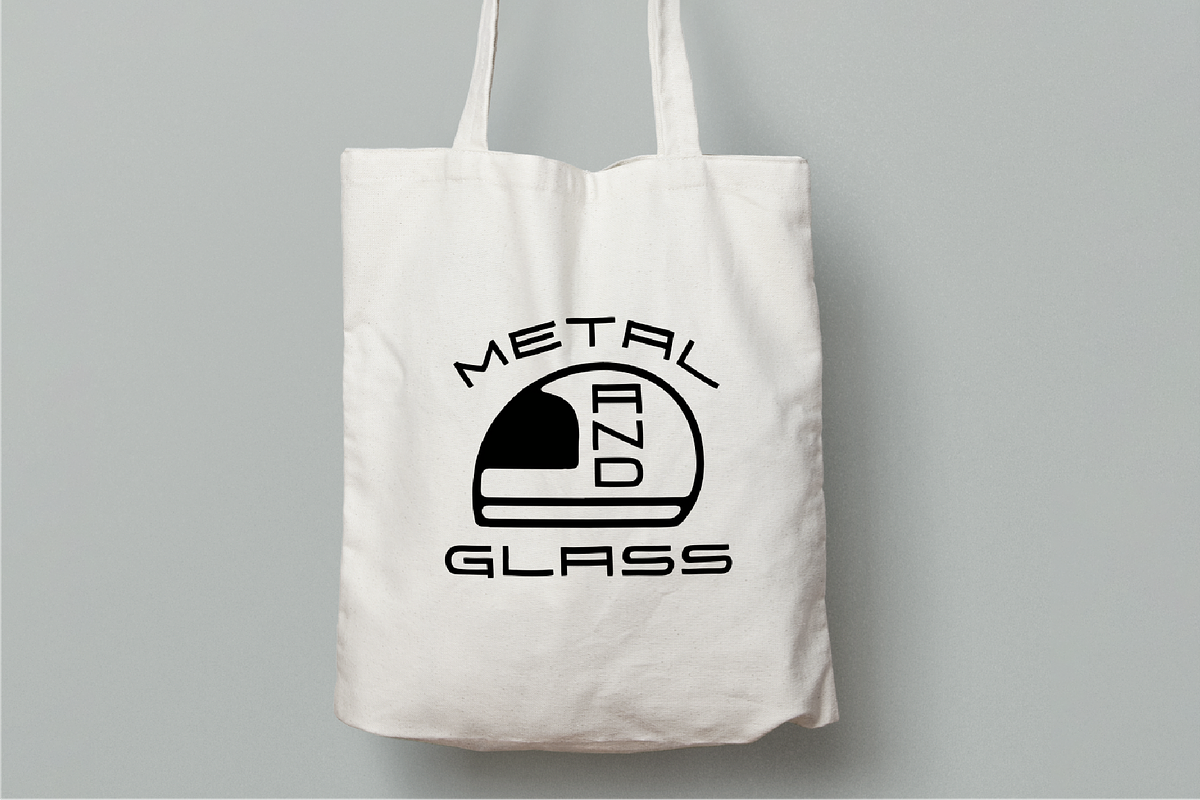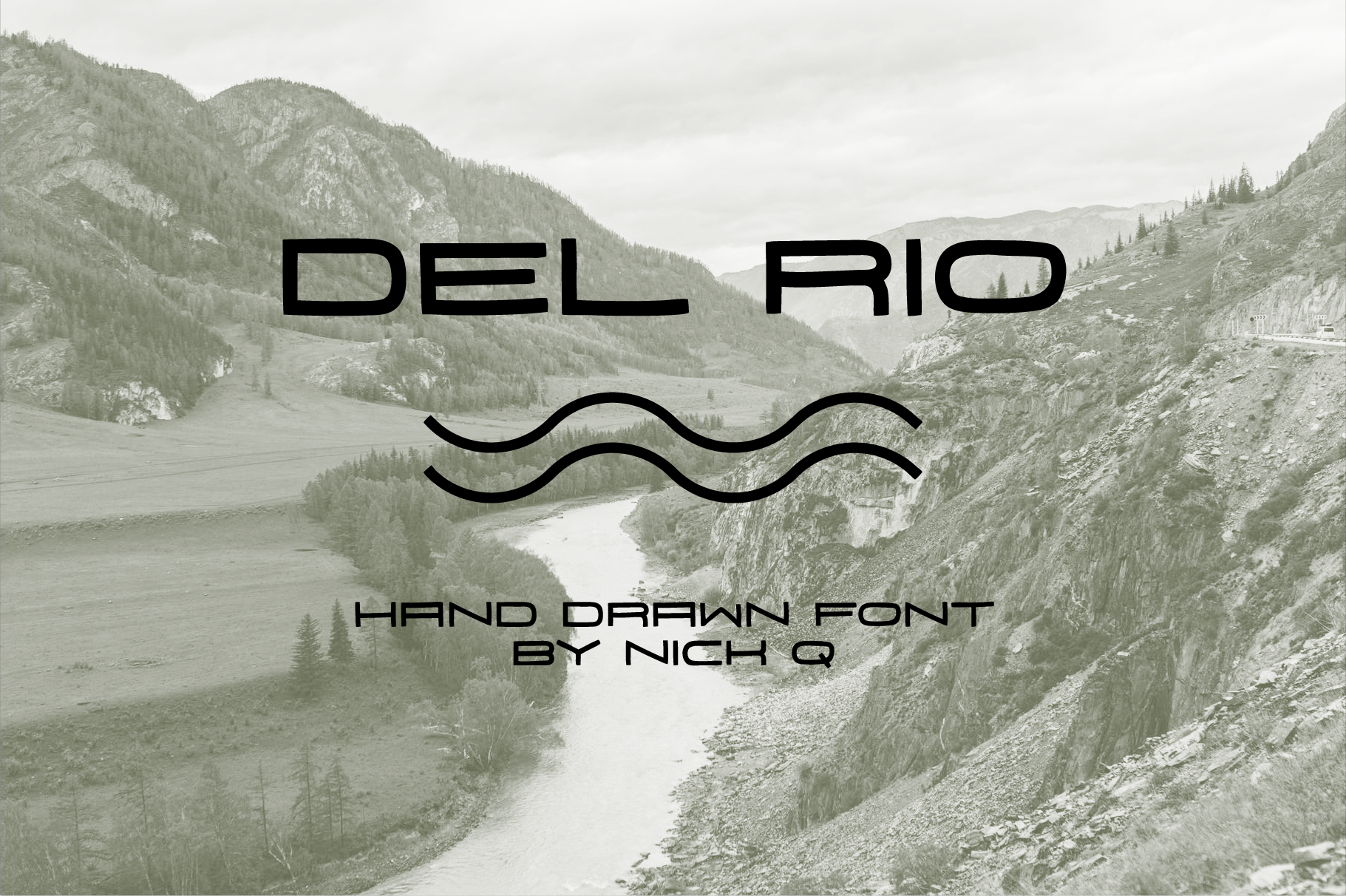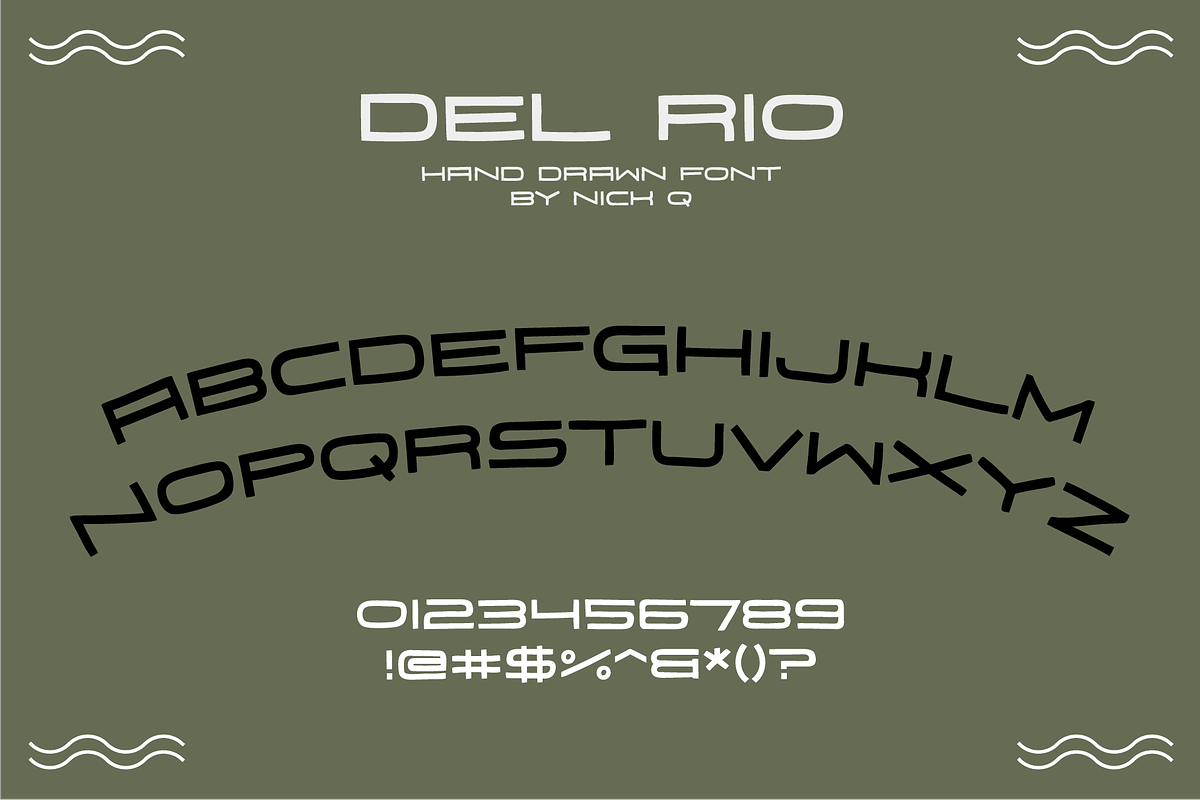
Del Rio Hand Drawn Font
My newest font is inspired by an unused drawing I did for SXSW. This one is called Del Rio. Del Rio is hand drawn with rough, rounded edges on what could have easily been straight and perfect. Of course, I enjoy the touches of a hand drawn font when it has imperfections a little more than a basic font.